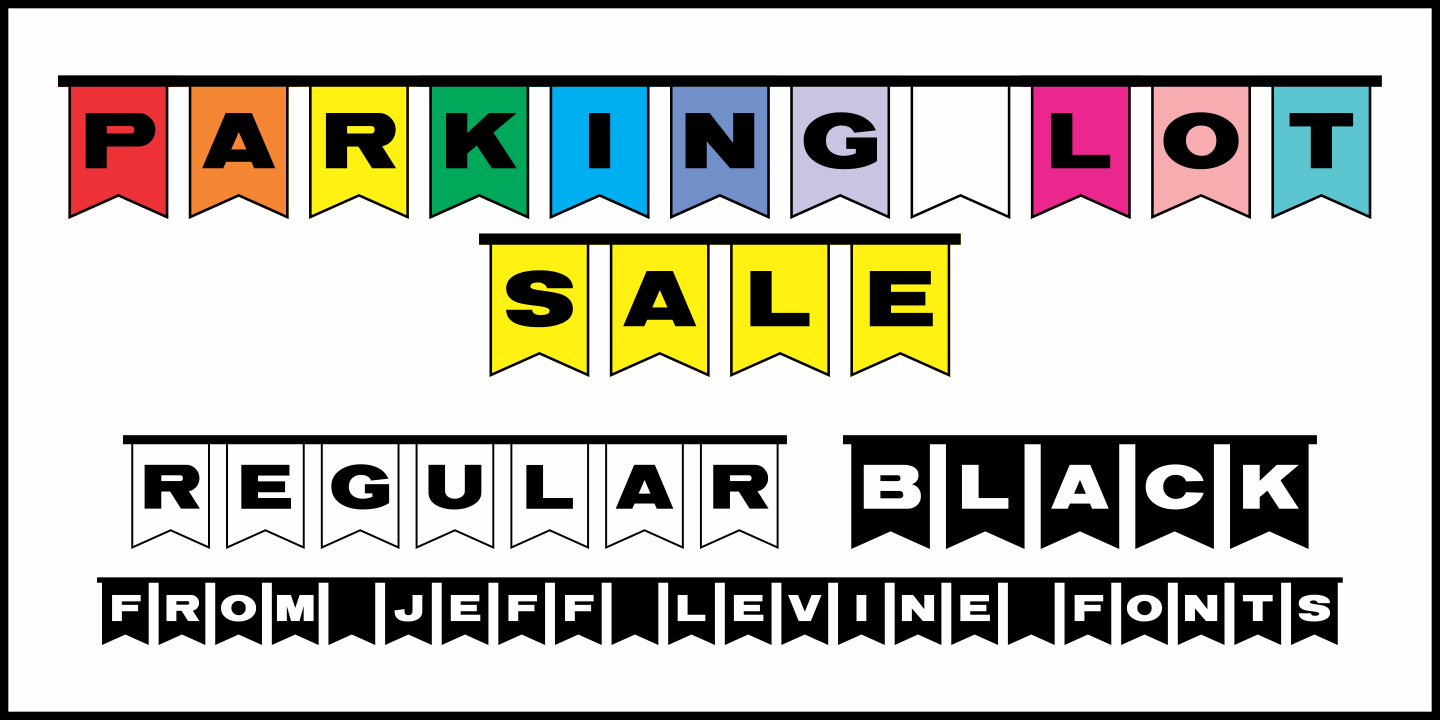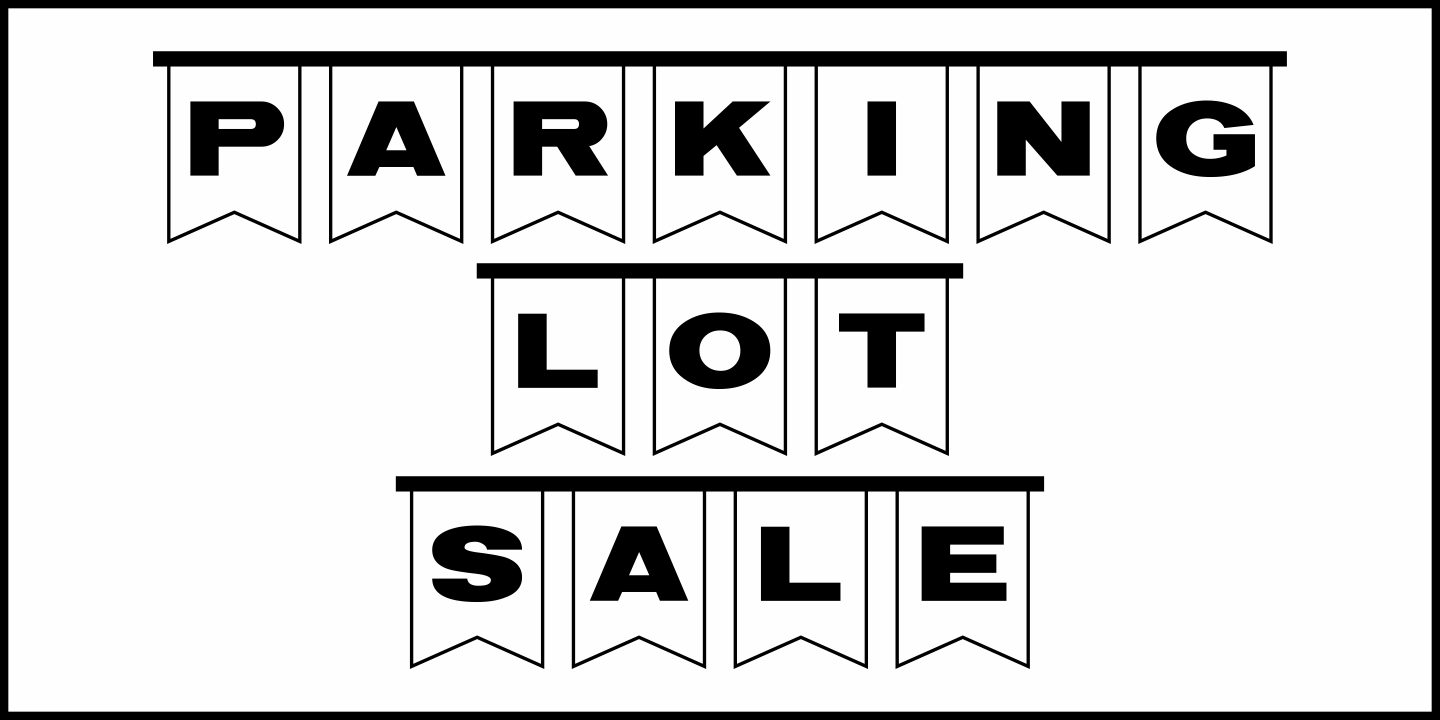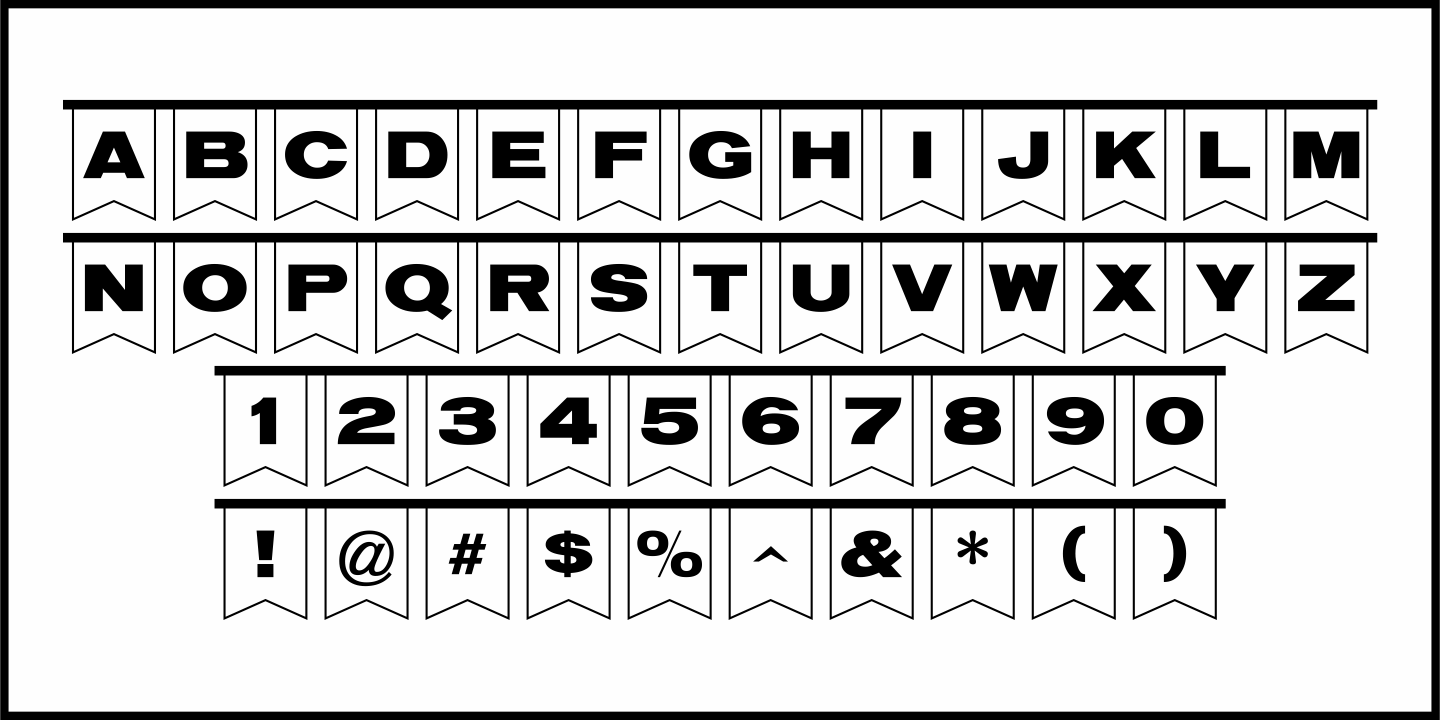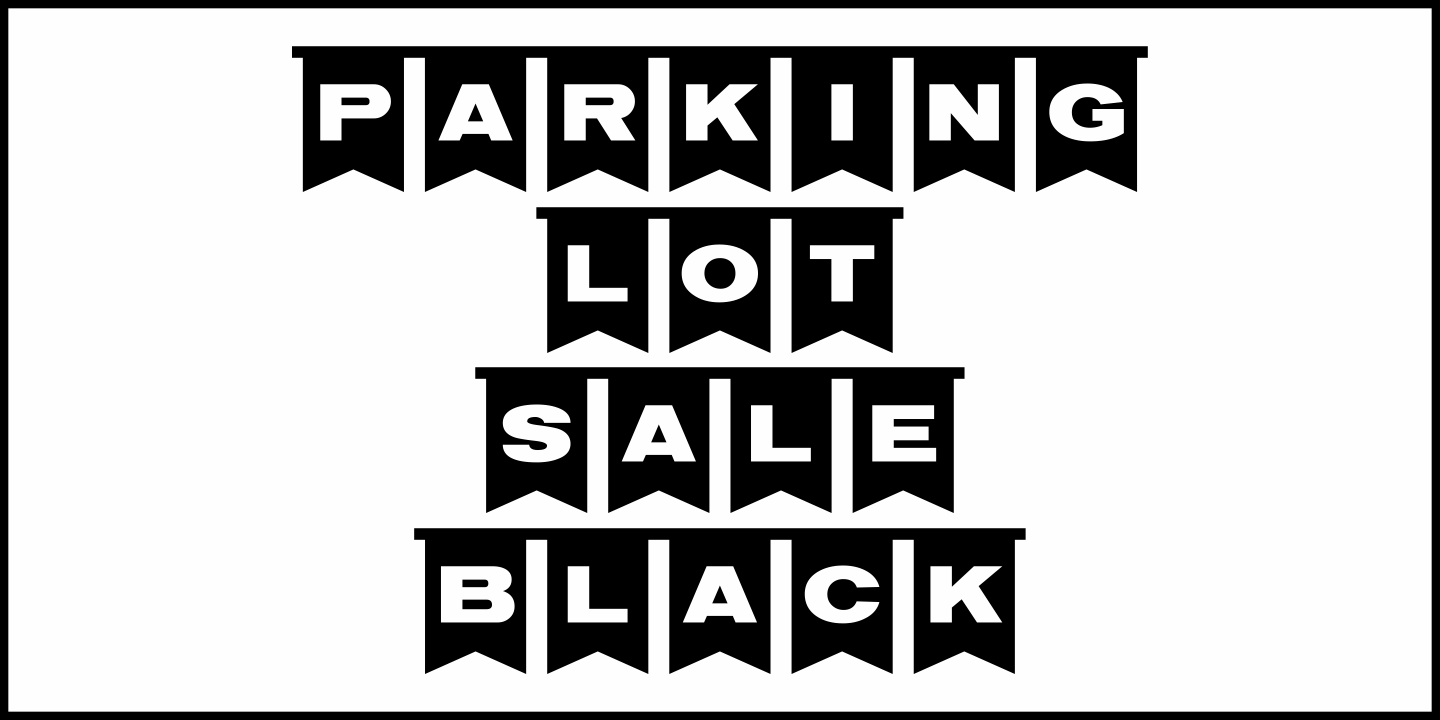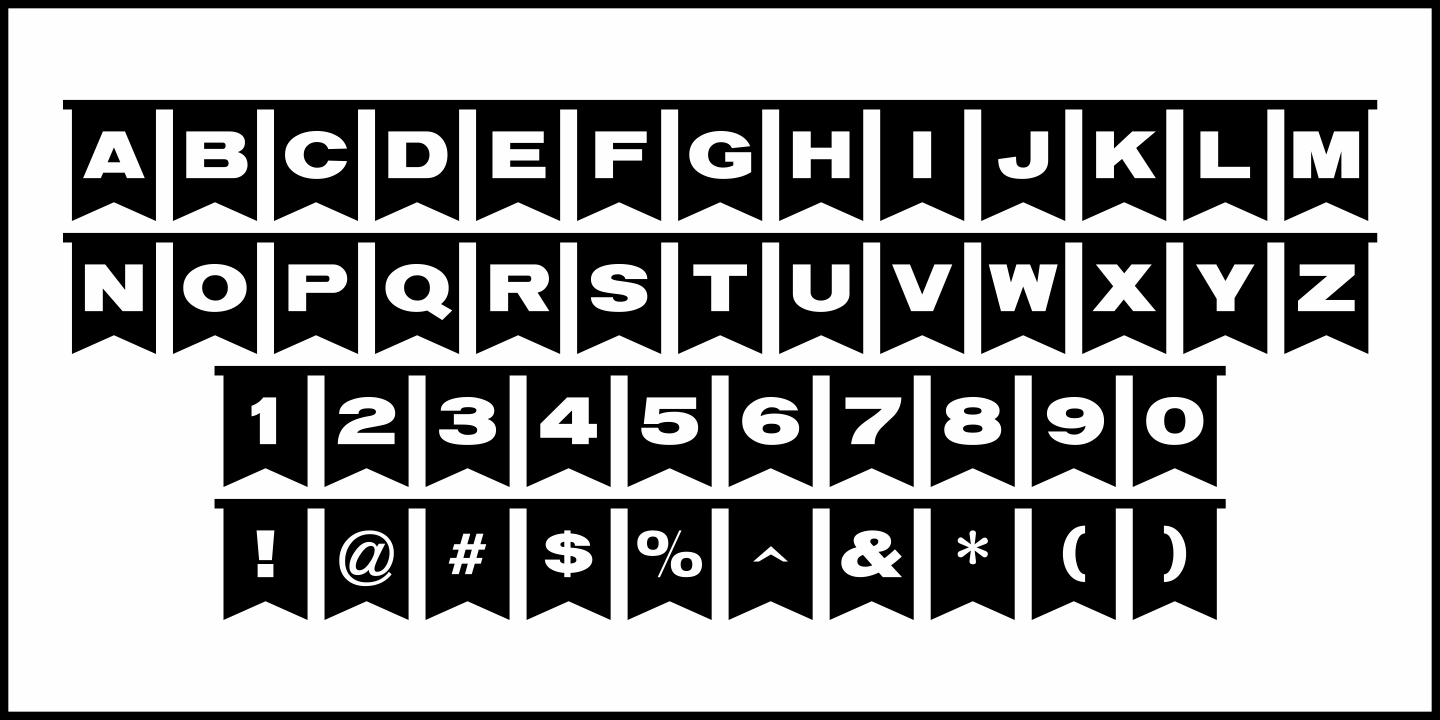
Parking Lot Sale
Here’s a novelty font emulating the plastic pennant streamers that were popular in the 1950s and 1960s used to decorate a store parking lot or used car lot for a sales event.
The typeface inside the individual pennants is Manufacturer JNL, which can be used for body copy associated with titles made by this font.
Parking Lot Sale JNL is available in regular (black letters on white pennants) and black (with white letters). A blank pennant for word spacing or end caps is available on the backslash key.